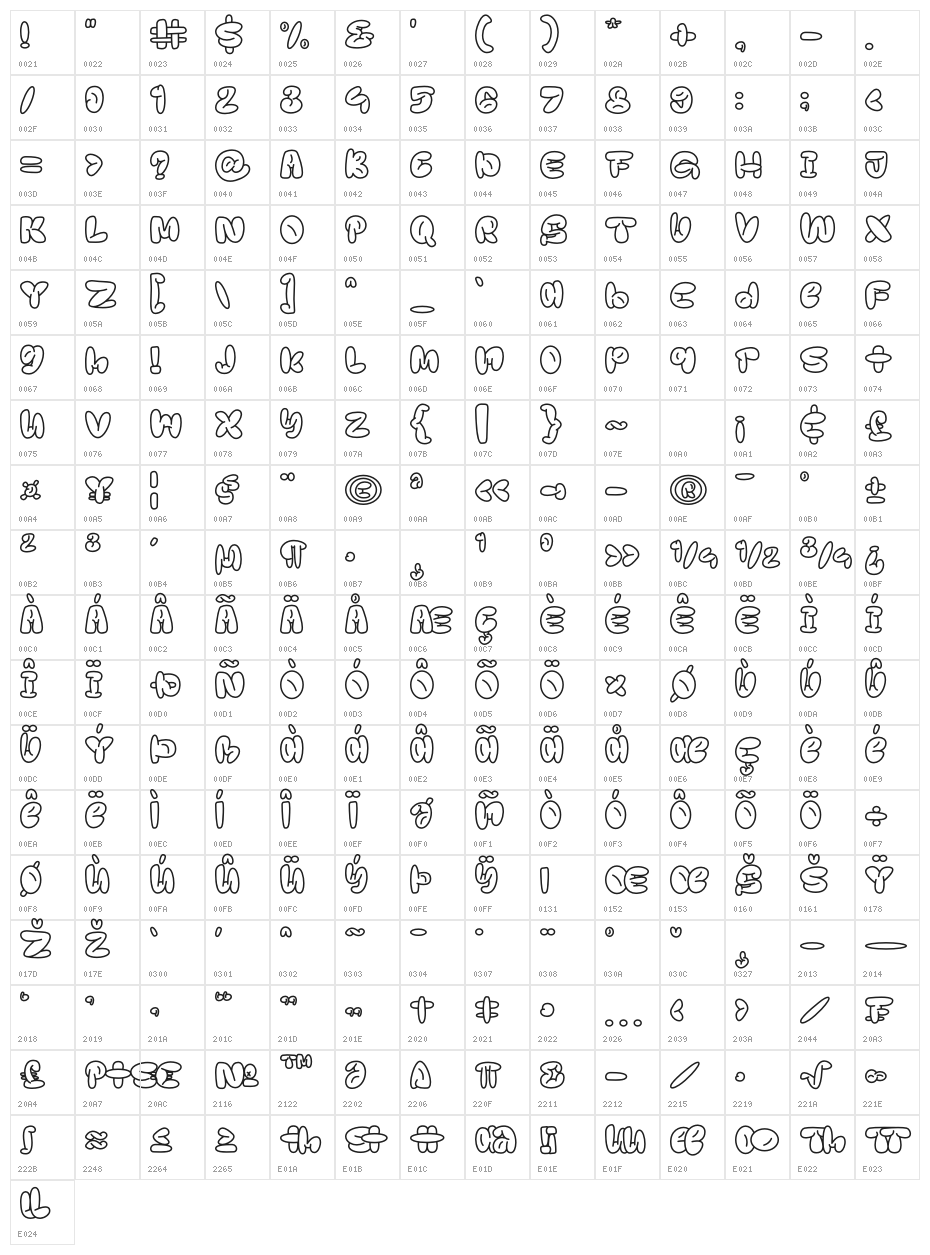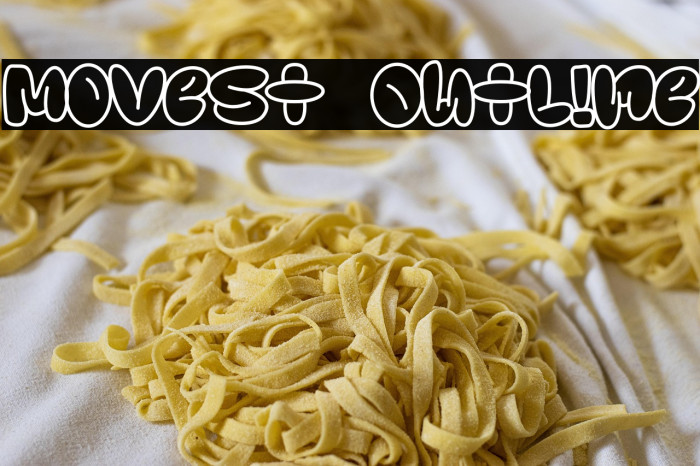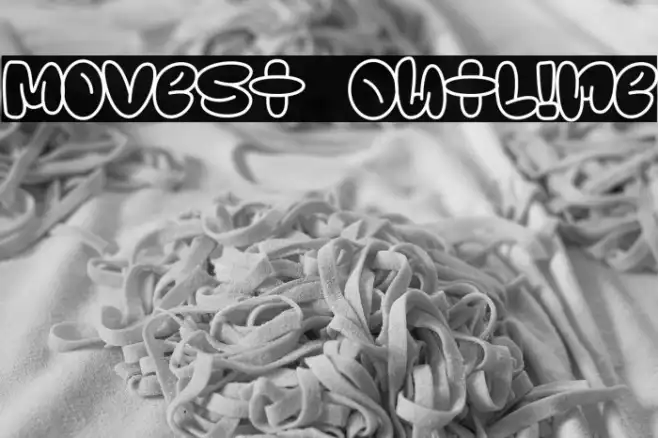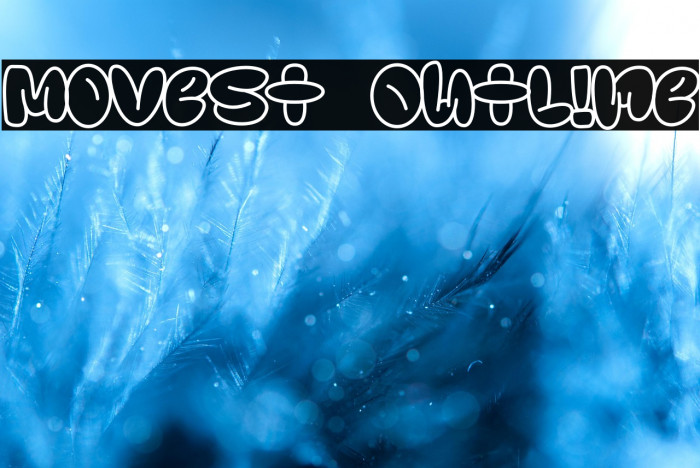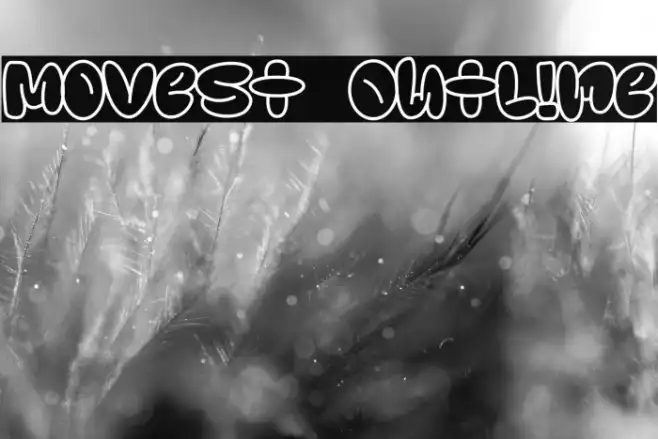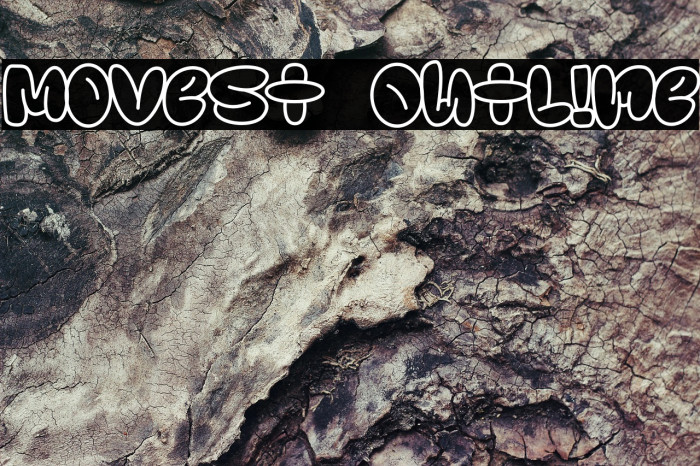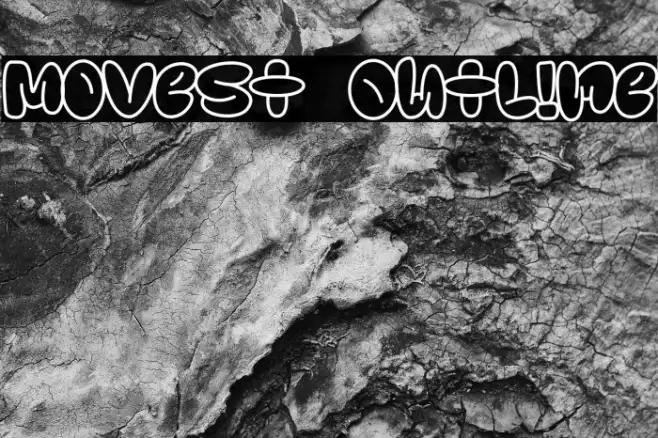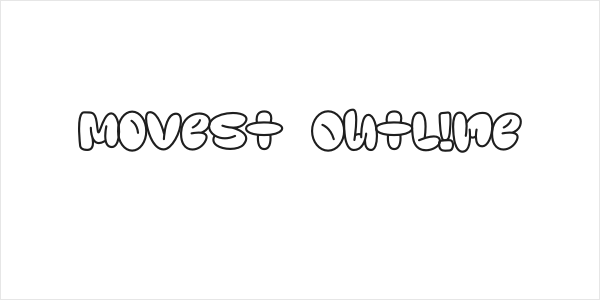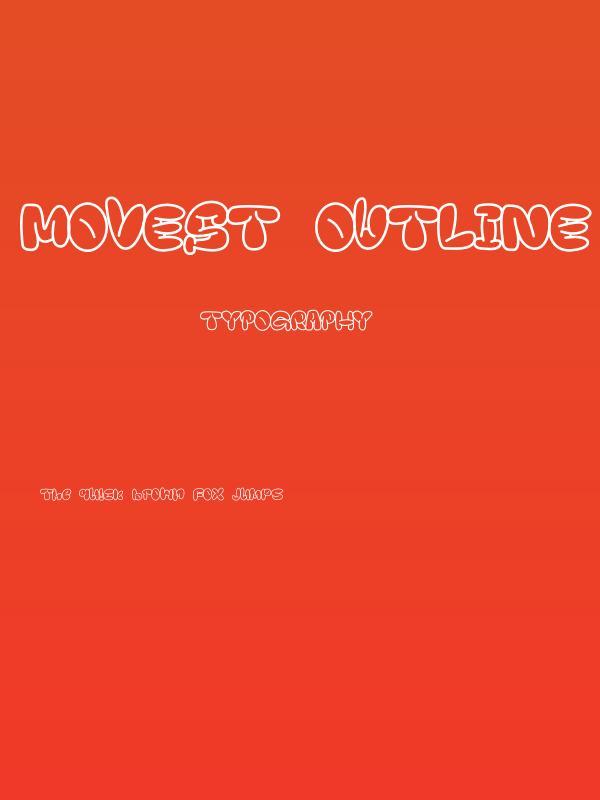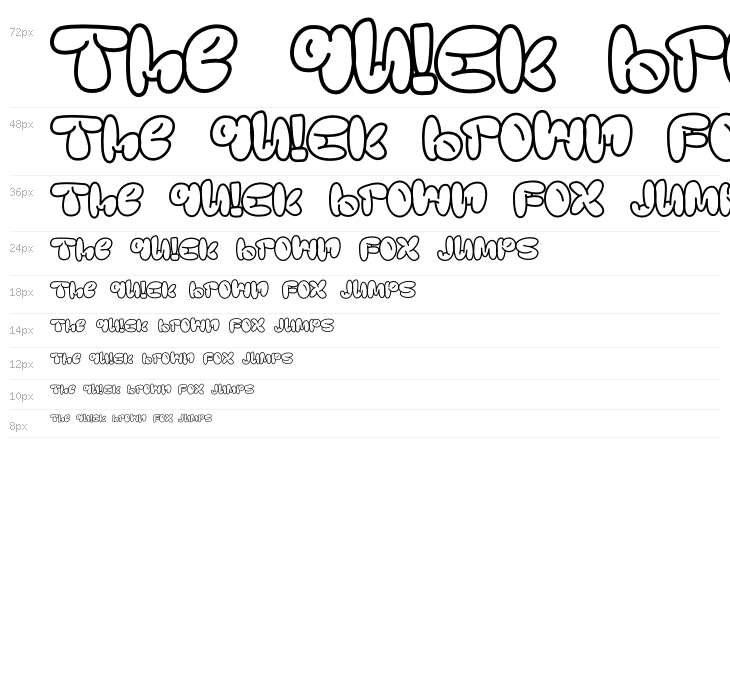
Movest Outline Font
Movest Outline Description
This font features a playful and bold outline style, characterized by thick, rounded edges that give it a bubbly and cartoonish appearance. The letters are uniformly outlined, creating a cohesive and visually striking look. Each character maintains a consistent thickness, enhancing readability while adding a fun, informal vibe. The font's design is both eye-catching and approachable, making it suitable for creative and lighthearted projects. The numbers and special characters follow the same stylistic approach, ensuring a harmonious overall design.
| Proposed Projects | Ideal for children's books, comic strips, playful branding, and party invitations. |